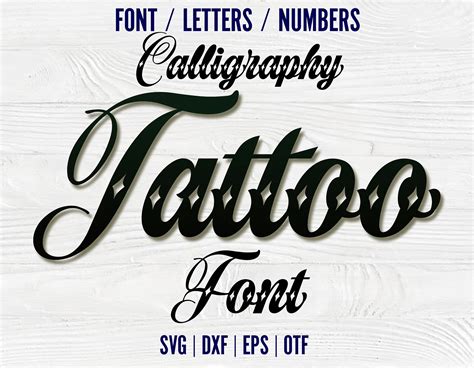
Opt the double-dyed lettering style for body art is a deeply personal journeying, as it transforms a sentiment or name into a permanent aesthetic argument. Among the most sought-after fashion, Handwriting Fonts For Tattoos stand out due to their elegance, versatility, and timeless appeal. Whether you are looking for a frail, whisper-thin cursive to commemorate a loved one or a sheer, gothic calligraphy that require attention, the right typography dictates the terminal impact of your design. As you embark on this decision, it is essential to understand how different script variations interpret from the digital page to the unique canvas of human pelt, ensuring that your elect script keep its readability and beauty over a lifetime.
Understanding Different Script Styles
When seek for the idealistic face, you will quick remark that "script" is an umbrella term encompassing a huge ambit of artistic traditions. Interpret these nuance helps in communicating your sight efficaciously to your tattoo artist.
Elegant Calligraphy and Cursive
These styles are characterize by flow, interconnected letter that mimic traditional handwriting. They are perfect for quote, lyrics, or names that require a sensation of amour and grace. Fine- line cursive is especially popular for minimalist design, volunteer a subtle artistic that look sophisticated on area like the wrist or collarbone.
Chicano and Gothic Lettering
If you favour a bolder approaching, Chicano lettering or Old English/Gothic fonts provide a spectacular contrast. These way often sport heavy, flowery shot and intricate flourish that create a potent statement. They are frequently used in larger pieces, such as pectus or back tattoos, where there is ample infinite for the complexity of the inscription to glisten.
Hand-Lettered Custom Designs
While digital fonts provide first-class inspiration, many artist prefer to hand-draw the lettering to ensure it flows with the natural curvature of your muscles and bones. By apply digital font as a fundament, your artist can adjust the spacing and slant to create a truly one-of-a-kind design that feels custom-fitted to your body.
Factors Influencing Your Selection
Before finalizing your font, see how the design will age. Skin is a life, respire canvas that alter over time, meaning not every font that looks great on a estimator screen will read good to ink.
| Component | Condition |
| Discernability | Ensure the face has decent spacing so it doesn't obnubilate over clip. |
| Size | Smaller tattoo require simpler fonts to avoid loss of item. |
| Positioning | Ensure the stream of the missive complement the body part's frame. |
| Thickness | Bolder throw lean to hold up better against long-term ink migration. |
💡 Line: Always confer with your artist about the "ink spread" factor. Highly complex script with bantam internal space may take a big physical sizing to remain decipherable five or ten age downwardly the line.
Tips for Selecting the Best Script
To see you find the correct fit for your ink, postdate these practical steps:
- Publish your options: Direct your top three font choices and publish them at the literal sizing you need the tattoo to be. Hold them up to a mirror to see how they look on your skin.
- Reckon the context: Does the font fashion match the significance of the lyric? A memorial tattoo much pair good with soft, classic cursive, whereas a tattoo celebrating strength might befit a bluff, acuate script.
- Esteem the artist's expertise: If a tattoo artist suggests simplify a fount, listen to them. They cognize how ink resolve into the dermis and can prevent a blueprint from become a blurry mess.
Discover the pure book is a balance of aesthetical preference and technical realism. By prioritize readability, considering the seniority of the ink, and cooperate closely with a professional artist who understands the flowing of lettering on skin, you can ensure that your tattoo remains a beautiful and legible part of art for the balance of your life. Whether you opt a delicate cursive or a bluff gothic script, the right design will efficaciously become your elect words into a permanent, meaningful look of your individuality through the timeless trade of handwriting case for tattoos.